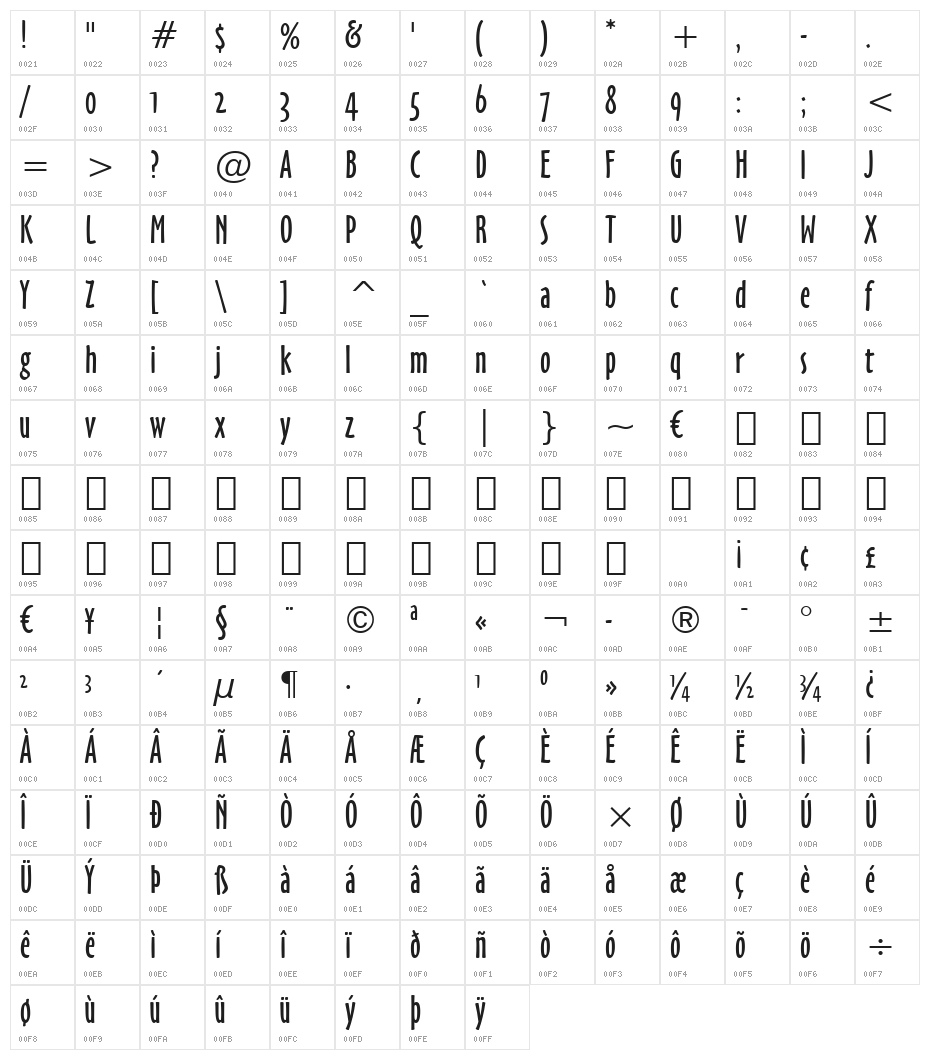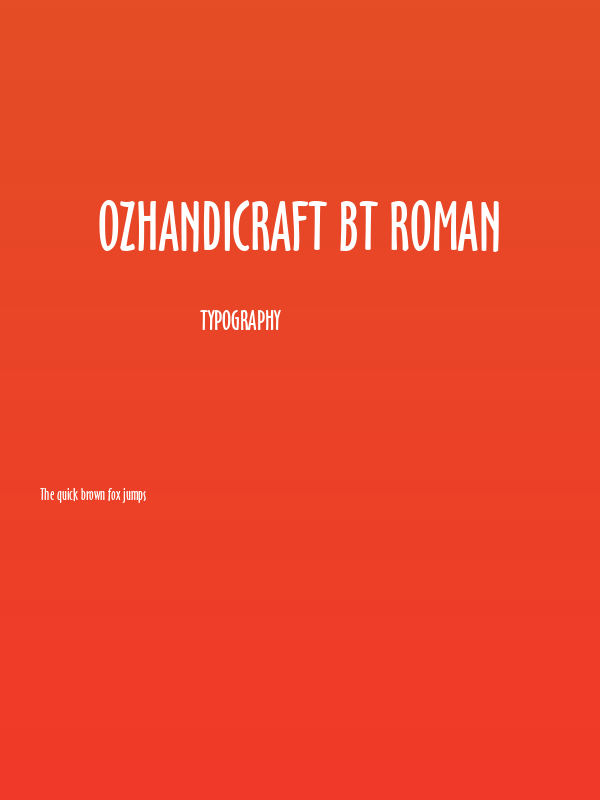
OzHandicraft BT Roman Font
OzHandicraft BT Roman Description
This font features a playful and whimsical design, characterized by its tall, narrow letters with a slight slant, giving it a dynamic and lively appearance. The strokes are consistent in width, providing a uniform look across all characters. The uppercase letters are bold and prominent, while the lowercase letters maintain a similar style but with a slightly softer touch. The numerals are distinct and easy to read, matching the overall playful aesthetic. Special characters are well-integrated, maintaining the font's unique style. This font is ideal for projects that require a fun and engaging visual element.
| Proposed Projects | Ideal for children's books, playful branding, posters, and creative invitations. |